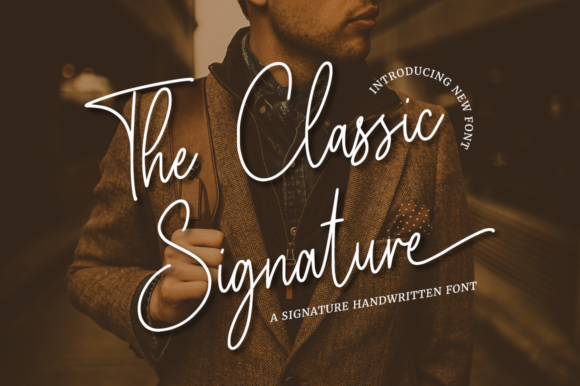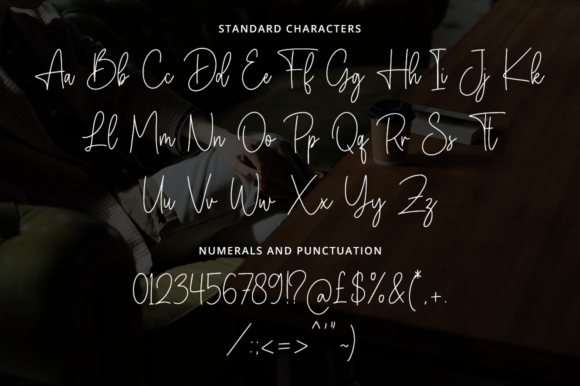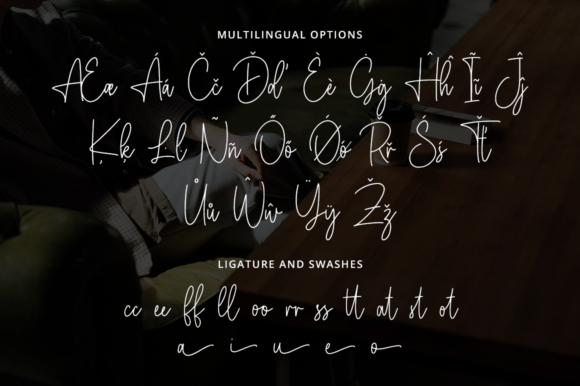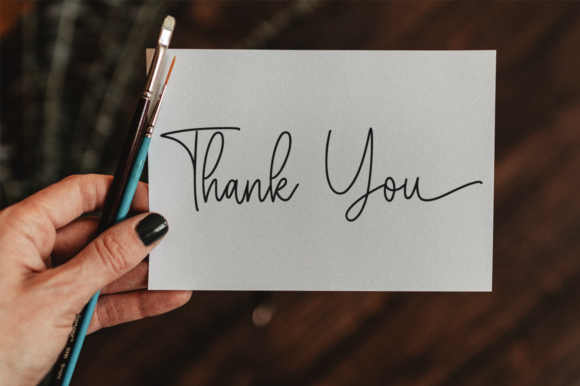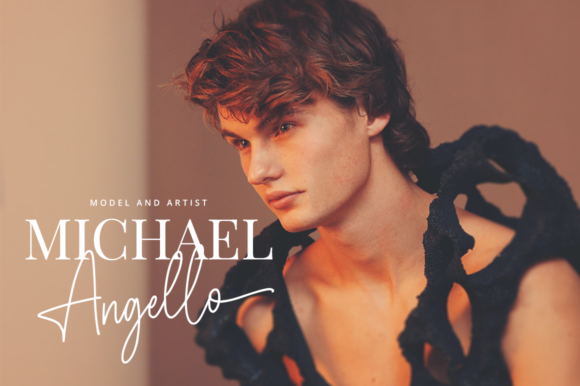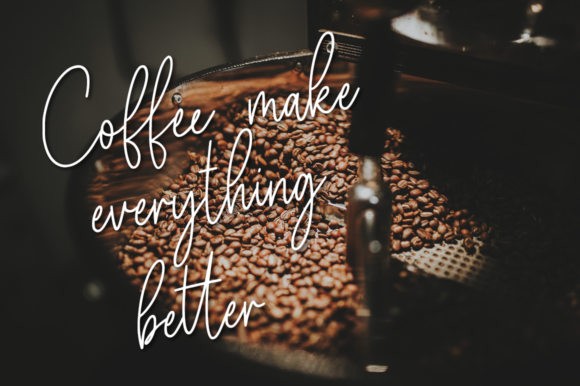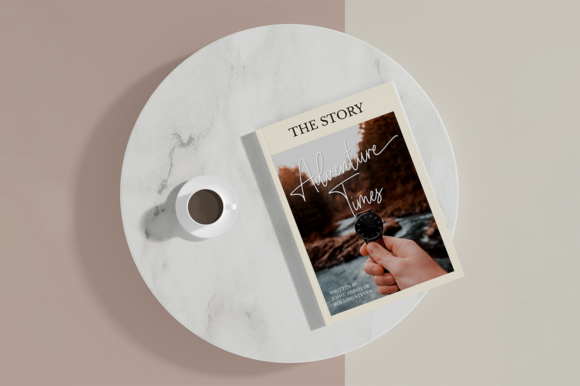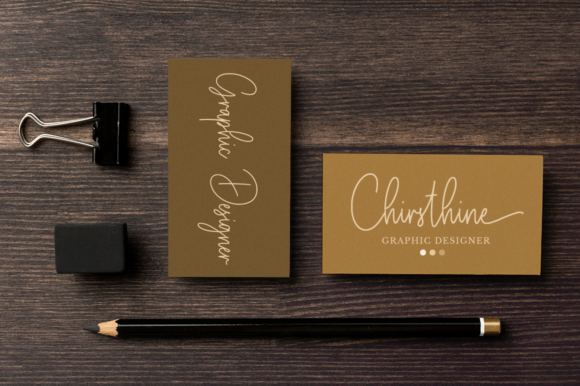
About The Classic Signature Font
The Classic Signature is a modern signature font which is combining classic calligraphy with a modern style. Its dancing baseline will give your design an elegant and modern touch.